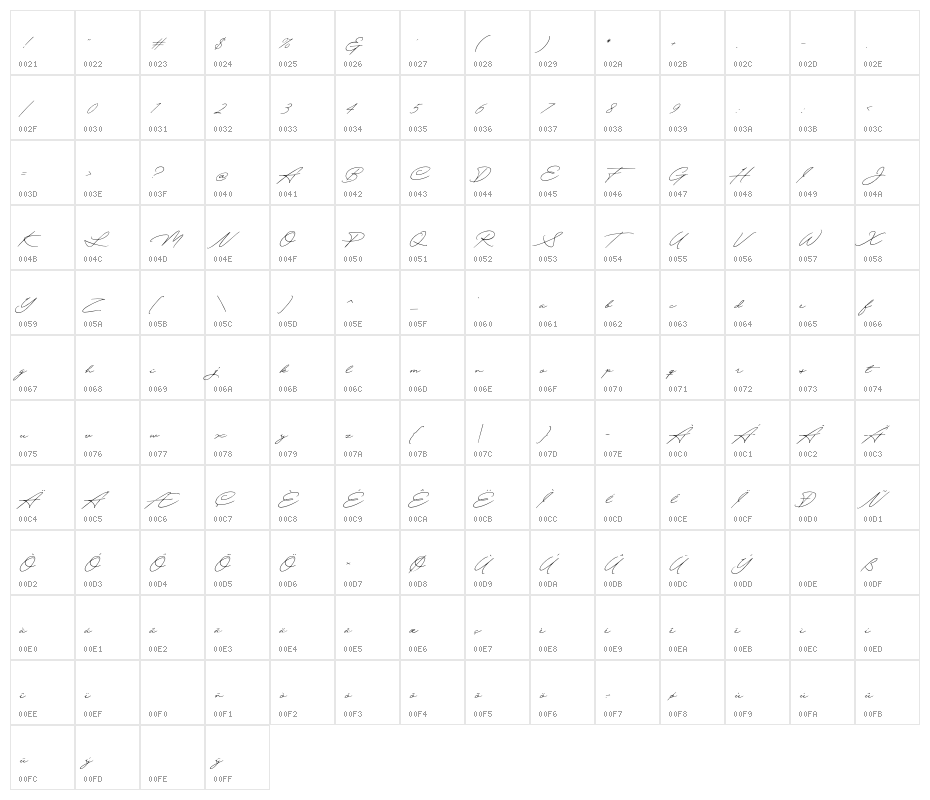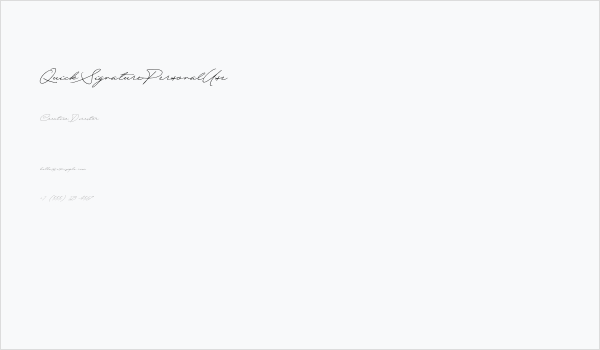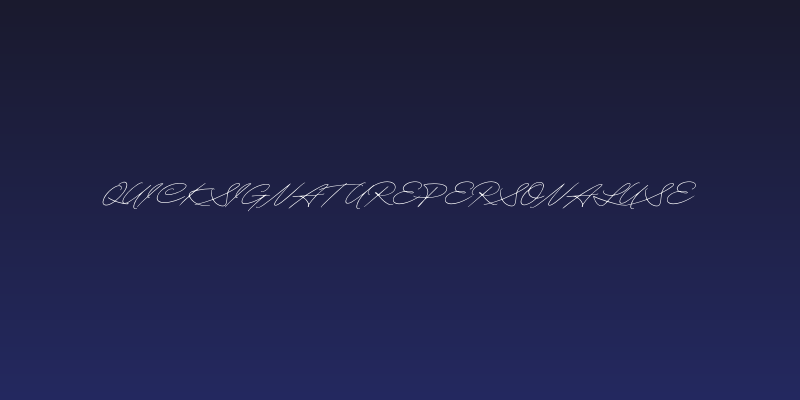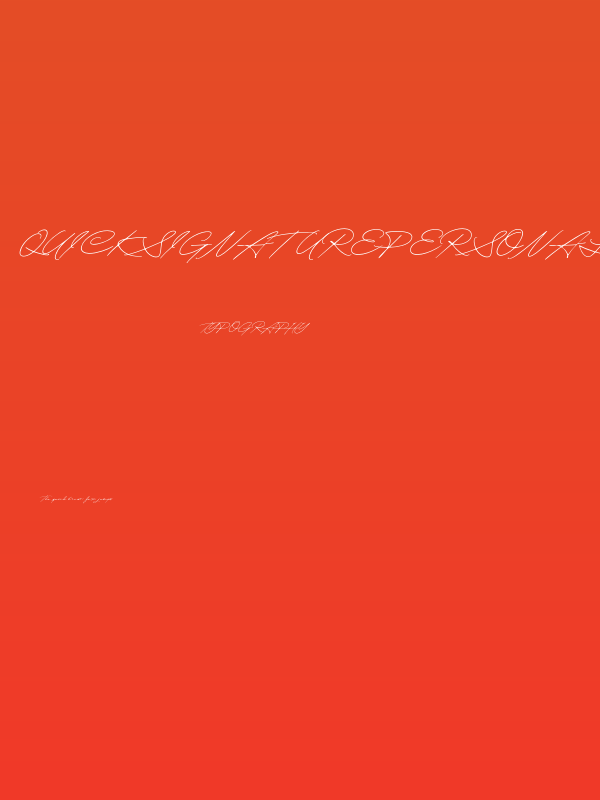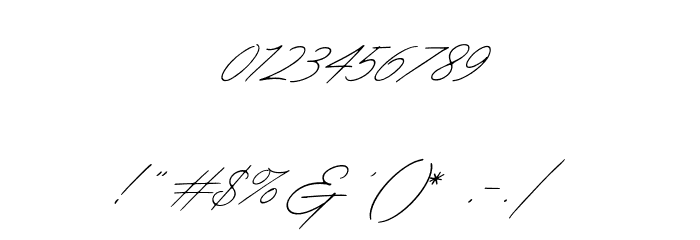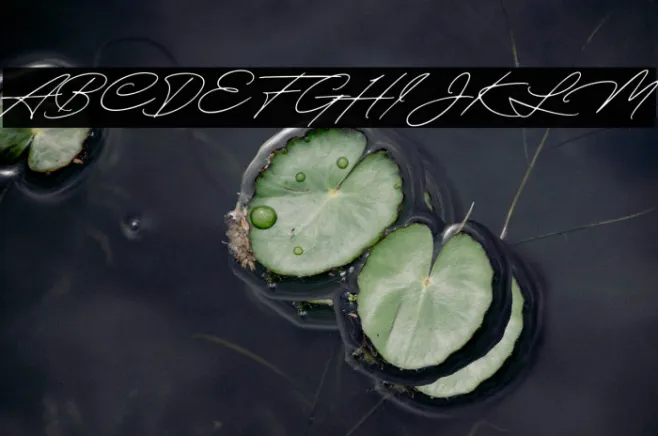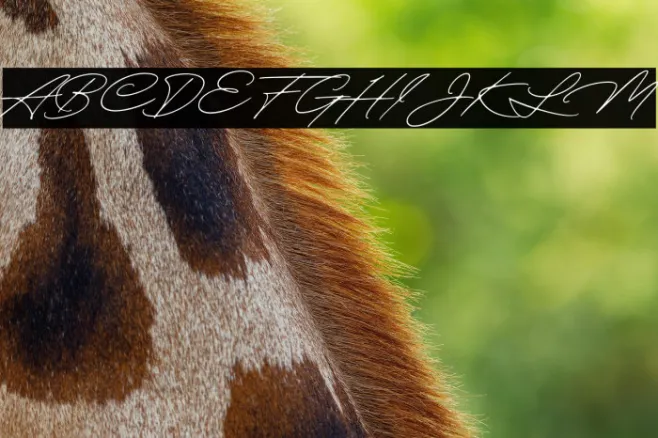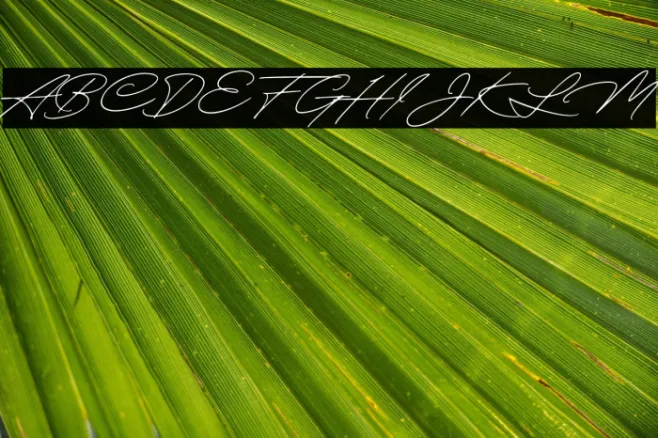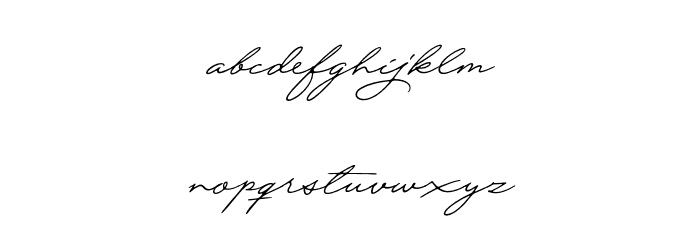
QuickSignaturePersonalUse Font
QuickSignaturePersonalUse Description
This elegant script font features fluid, cursive strokes that mimic the natural flow of handwriting. The uppercase letters are characterized by sweeping, elongated lines, while the lowercase letters maintain a consistent, graceful curve. The numerals and special characters are designed with the same attention to detail, ensuring a cohesive look across all elements. The font's delicate and sophisticated style makes it ideal for projects that require a personal touch, such as invitations, greeting cards, and branding materials. Its artistic flair is balanced with legibility, making it both beautiful and functional.
| Proposed Projects | Ideal for wedding invitations, personal branding, greeting cards, and elegant stationery. |